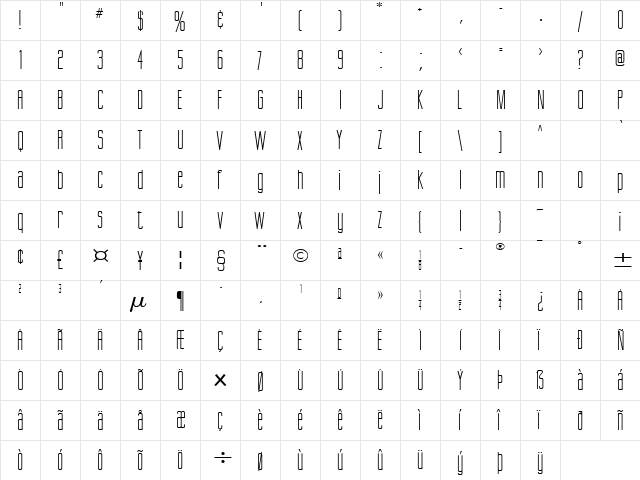
Gorgio Wide Normal
Design Context for Gorgio Wide Typeface
Gorgio Wide offers clean, dependable letterforms without strong stylistic allegiance, making it a practical choice for designers who need flexibility.
Pro Tip: Use Gorgio Wide in both headline and body roles to test its range before committing to a single application.